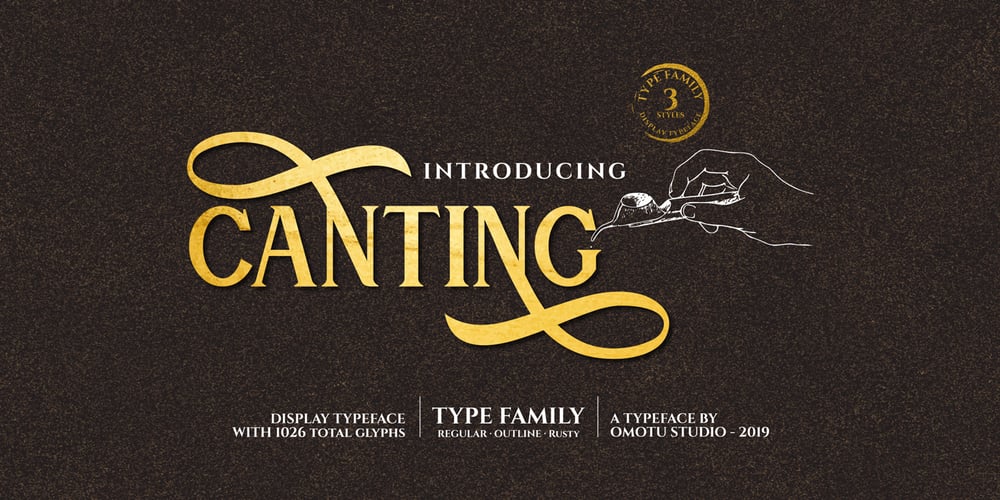
Canting Font Family was designed by Ibnu Utomo and published by Omotu. Canting contains 2 styles and family package options. Canting is a decorative serif font. It perfectly represents vintage esthetics in a modern and minimalist way. The font includes special uppercase letters and alternate characters. The font is perfect for elegant logo design, product packaging, quotes, poster design, brand identity, lettering, and many more. What’s Include? 1. Uppercase characters with 3 styles (regular, outline, and rough) 2. Supports international languages 3. Opentype features: stylistic alternates with beautiful swashes 4. Accessible in the Adobe Illustrator Glyphs panel, or under Stylistic Alternates in the Adobe Photoshop OpenType menu, Adobe InDesign, Corel Draw, even work on Microsoft Word. 5. TTF and OTF files PUA Encoded Characters – Fully accessible without additional design software. Don’t forget to visit our other products: Crown: https://fontbundles.net/omotu/218250-crown Sweet Candy: https://fontbundles.net/omotu/200017-sweet-candy Alitta: https://fontbundles.net/omotu/194813-alitta Sattay: https://fontbundles.net/omotu/188296-sattay Thanks for looking, and I hope you enjoy it! Please don’t hesitate to drop me a message if you have any issues or queries. Regards, Omotu (ibnu.blawong2@gmail.com)